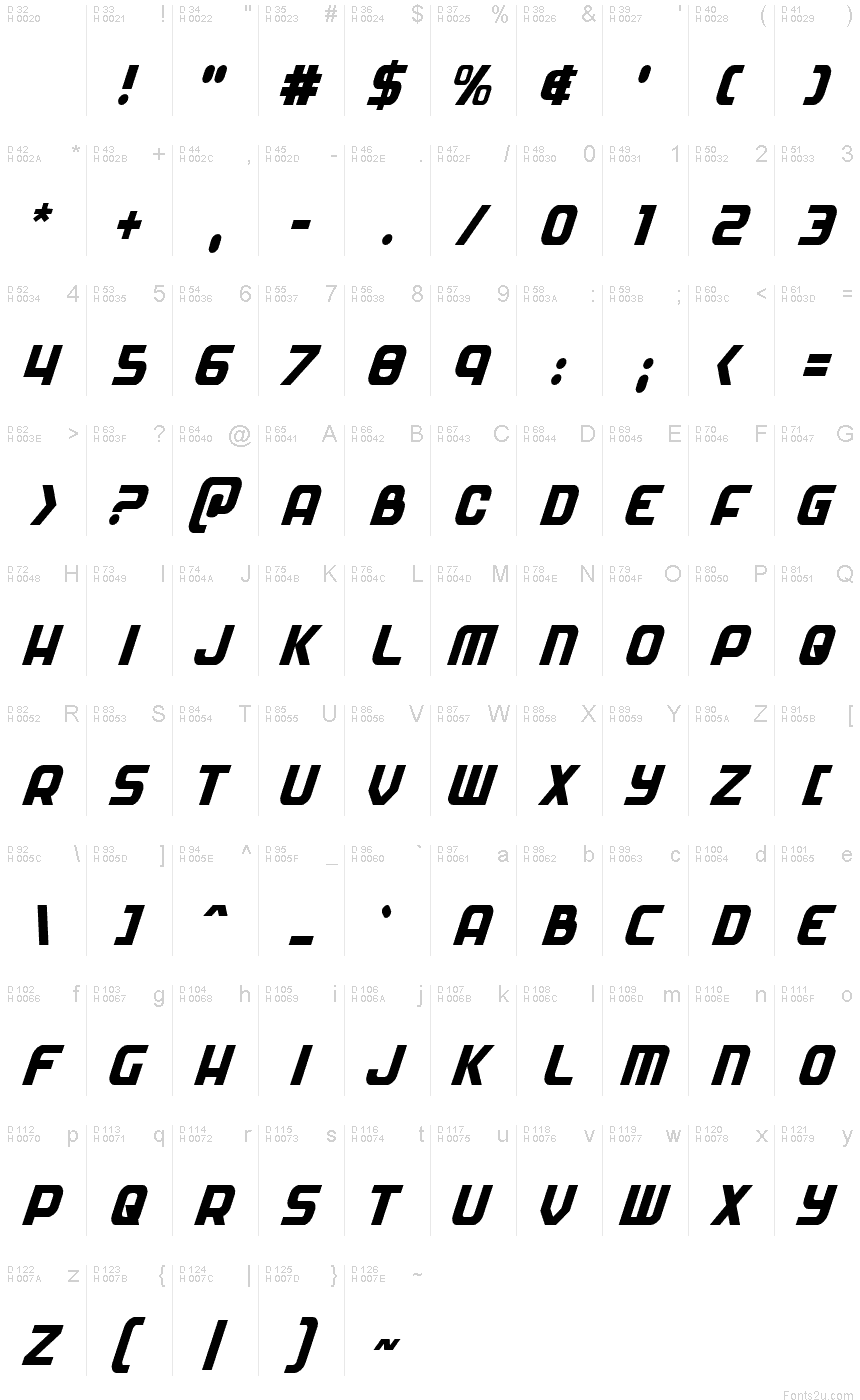
Soldier Condensed Italic by Daniel Zadorozny of Iconian Fonts is a free condensed italic sans serif with a forceful sports-lettering profile. Broad strokes, tight proportions, and sharply slanted forms make it fast and compact.
It suits motorsport branding and action-game title cards because the forward lean suggests speed, and the dense silhouettes remain solid against busy artwork. Music merchandise and event posters can draw on the same aggressive impact without borrowing a literal racing theme. On team apparel, the lettering can become part of the uniform's graphic striping rather than serving as neutral text.
Soldier Condensed Italic
Condensed Italic